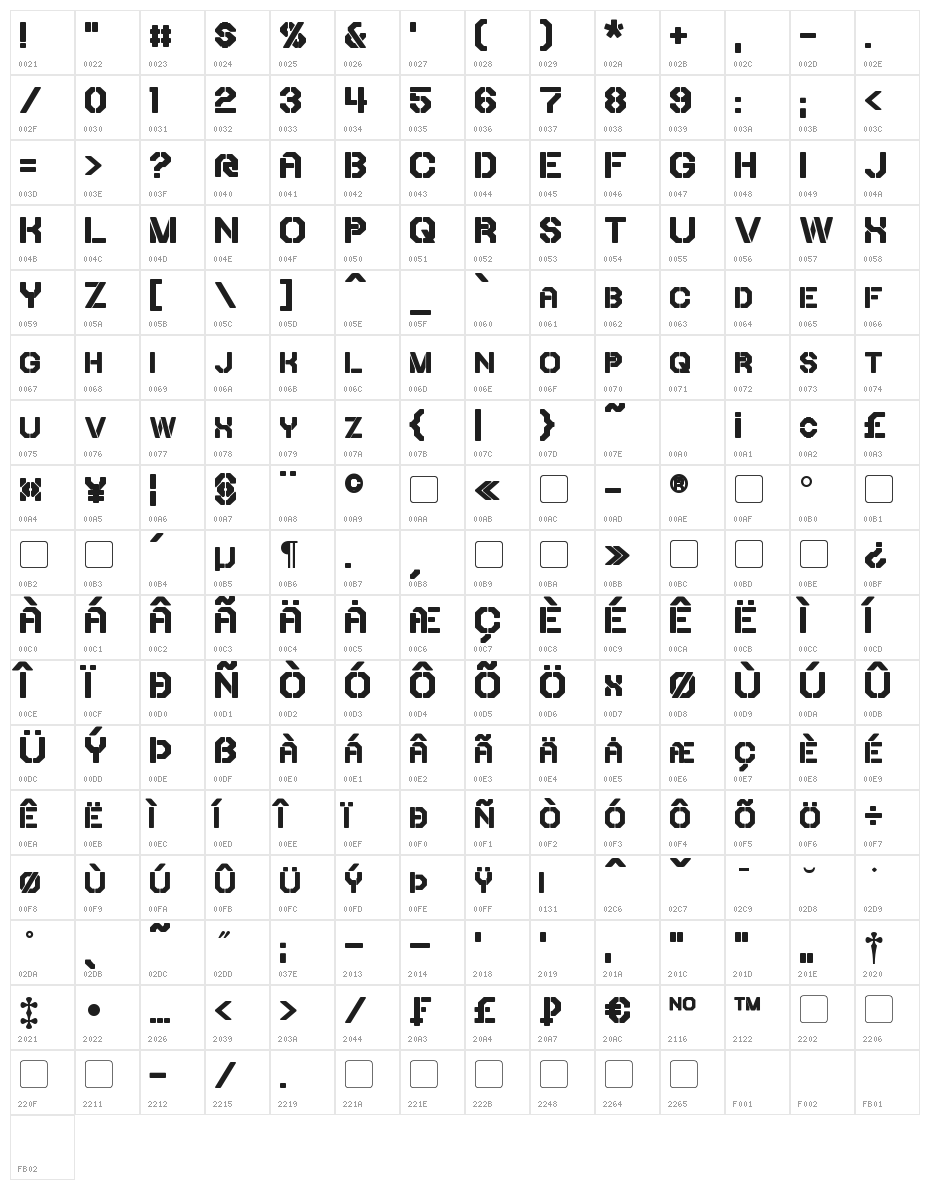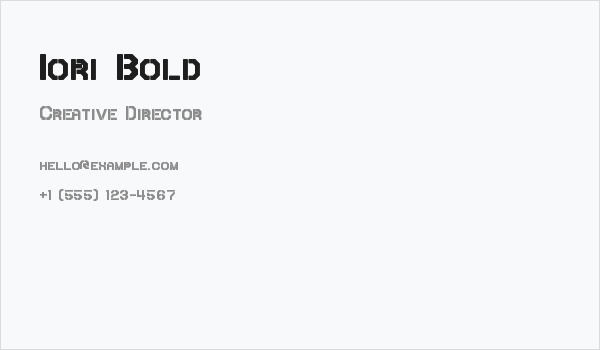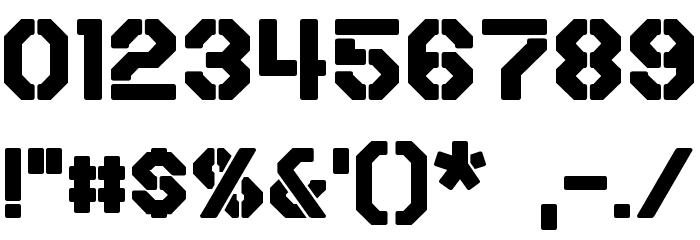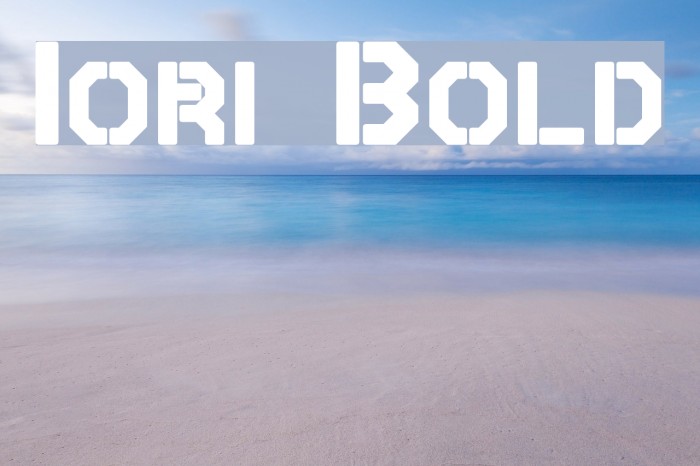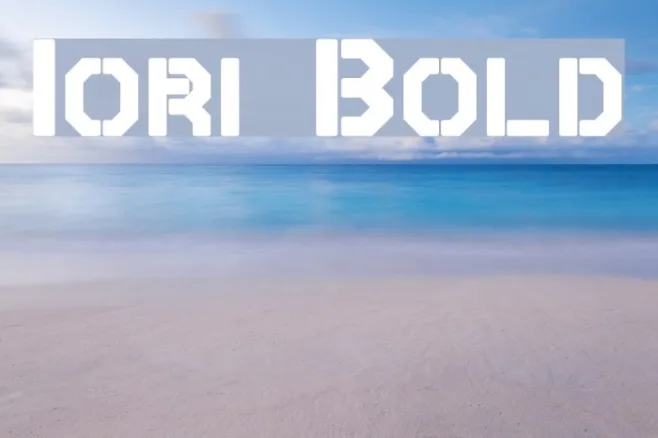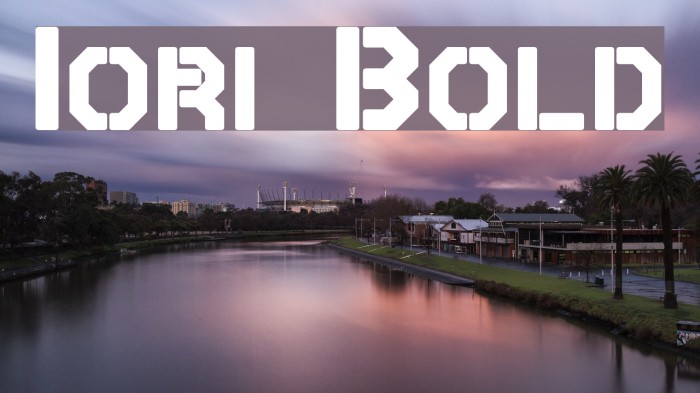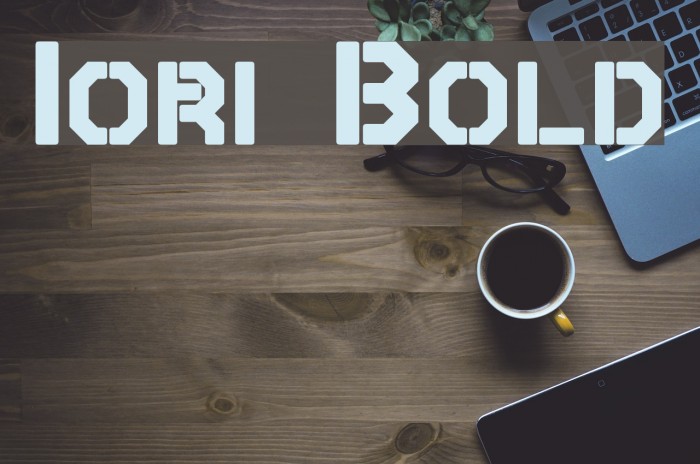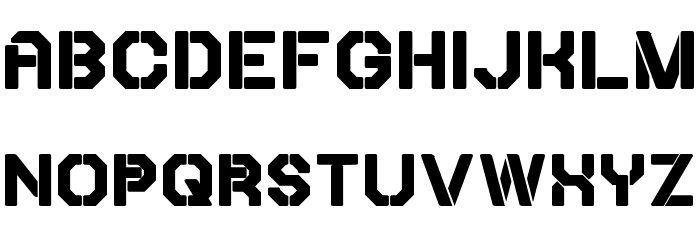
Iori Bold Font
Iori Bold Description
This font features a bold, geometric design with a distinct stencil-like appearance. The characters are constructed with thick, uniform strokes, creating a strong and impactful visual presence. The angular cuts and sharp edges give it a modern and industrial feel, making it ideal for attention-grabbing headlines and displays. The uppercase letters are particularly striking, with a consistent height and width that contribute to its cohesive look. The numerals and special characters maintain the same boldness and geometric style, ensuring uniformity across all text elements.
| Proposed Projects | Ideal for posters, branding, logos, and any project requiring a strong, industrial aesthetic. |